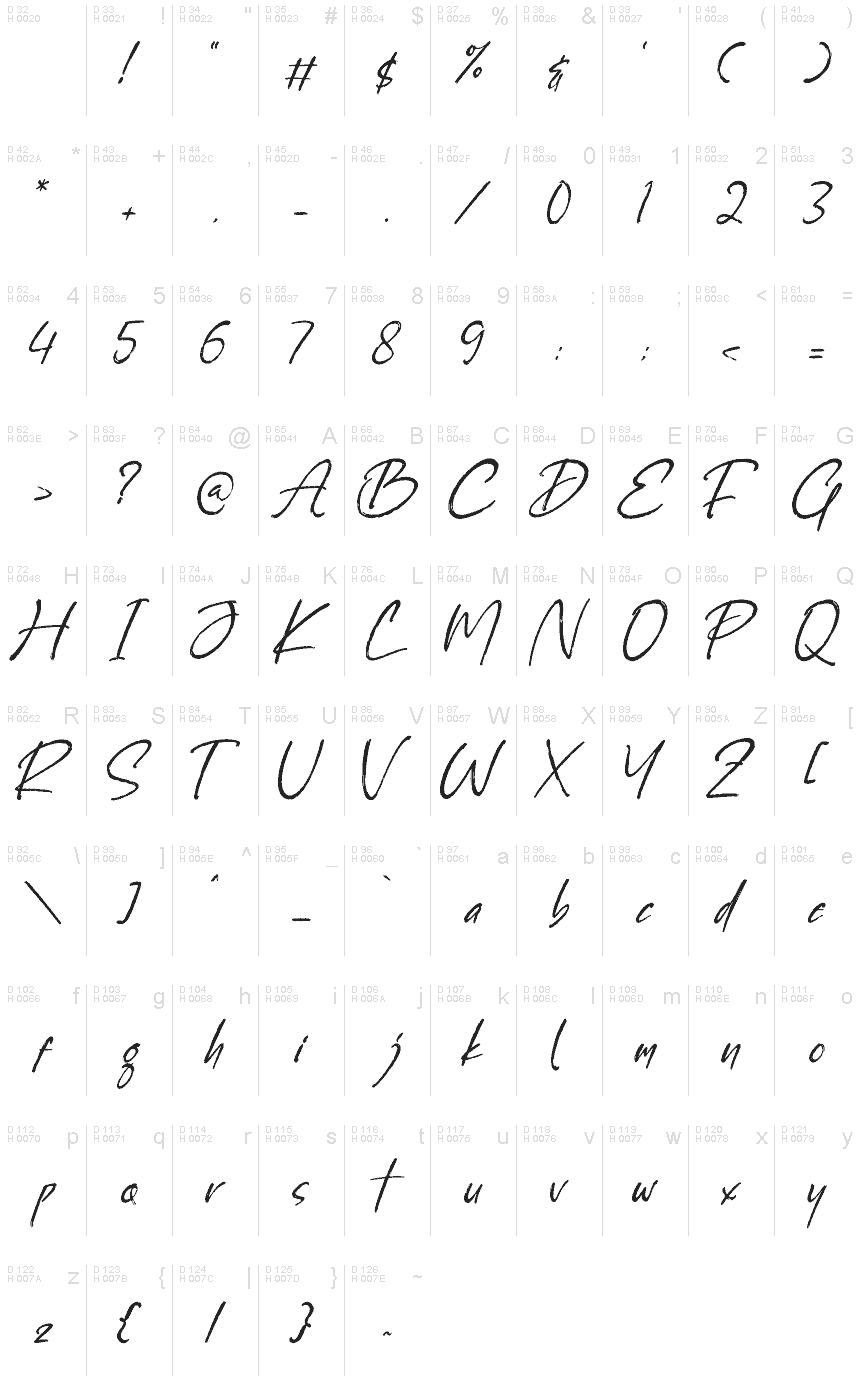
Blockbustter
Blockbustter font by Letterena Studios is a light brush font that embodies modern elegance and artistic expressiveness. Its fluid and dynamic strokes create an atmosphere of casual sophistication, making it stand out in any context. This free calligraphy font captures attention with its natural and graceful appearance.